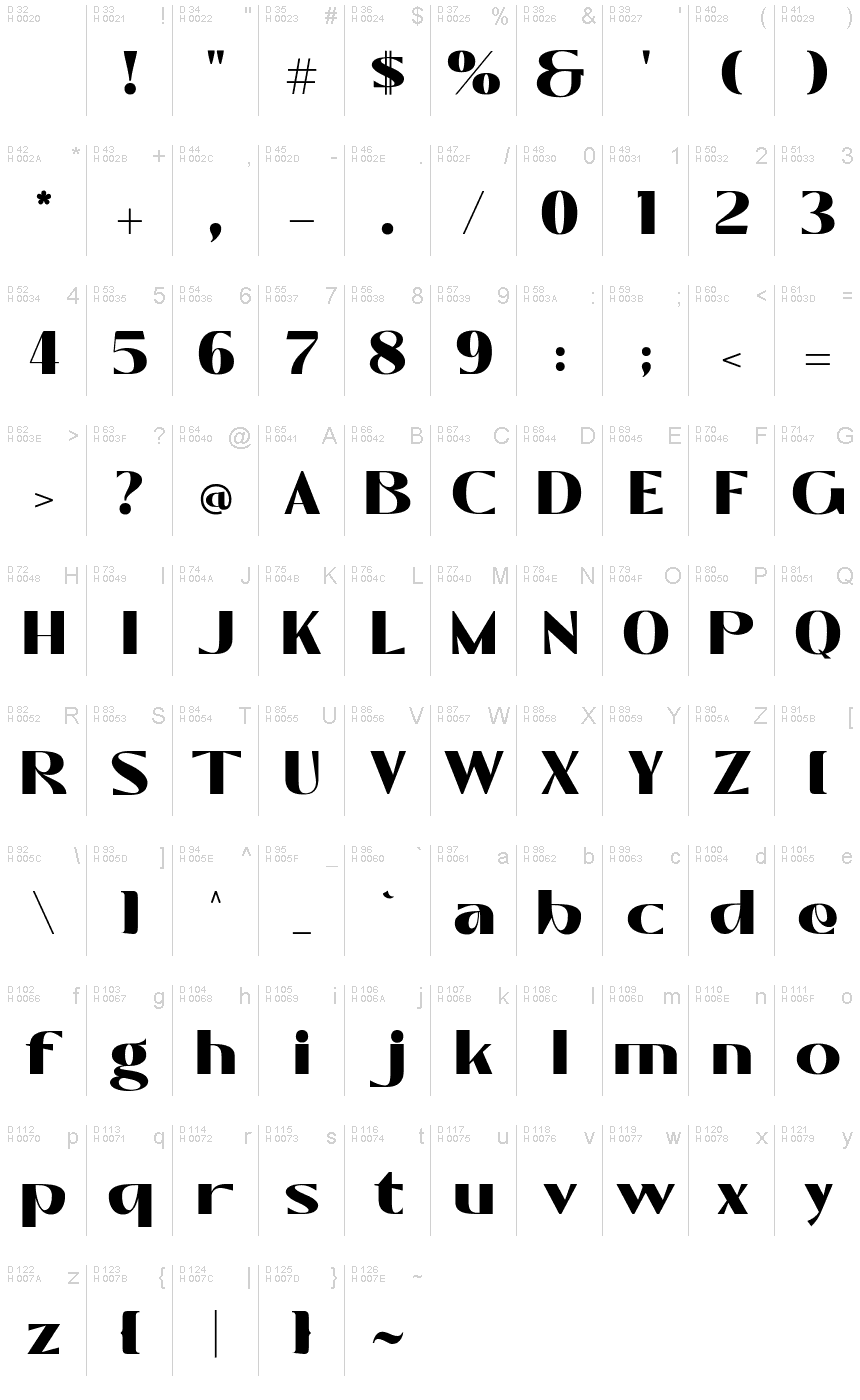
Trigly Demo Black
Trigly Black emerges from the Trigly font family as a bold statement piece designed by madeDeduk. With its retro flair and expanded width, this display font carries a unique visual weight that commands attention. The boldness of Trigly Black is more than just its substantial stroke width; it's an embodiment of confidence and strength, making it perfect for impactful headlines, assertive branding, or any creative endeavor that demands a strong typographic presence.
The character shapes are generously proportioned, with a nod to the nostalgia of vintage design yet crafted for contemporary appeal. Its aesthetic is both inviting and assertive, providing a delightful balance between classic style and modern-day charisma.
Trigly Black's expanded form factor coupled with its retro undertones opens up exciting possibilities for diverse applications—think music album covers that need to evoke an era gone by or posters that intend to make an authoritative statement. This typeface isn't just seen; it's experienced—a powerhouse font for designers looking to make their mark with every letter.